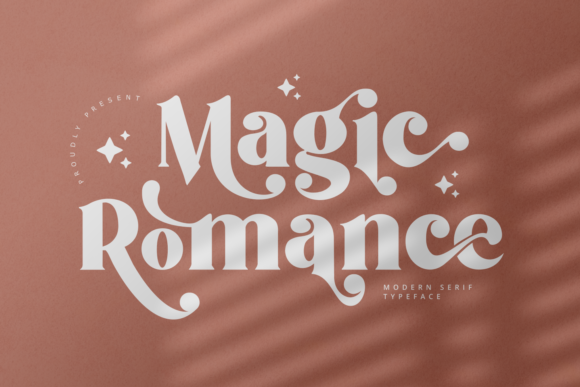
Introducing Magic Romance Font, the ultimate choice for fashionistas and design enthusiasts alike! Created by zeenesia, this retro styled, trendy and fashionable serif font is here to elevate your creative game to new heights. With its PUA encoding, accessing the stunning glyphs and ligatures has never been easier!
Unleash your inner creativity and let Magic Romance Font mesmerize your audience with its exquisite charm. Perfect for fashion logos, this font family is designed to evoke emotions and make a lasting impression. Its timeless appeal will ensure that your brand stands out from the crowd.
Step into a world of endless possibilities with Magic Romance Font. From elegant quotes to captivating headlines, this font will bring your designs to life, leaving your audience in awe. Its versatility allows it to seamlessly blend into various design projects, making it a must-have for any creative endeavor.
With Magic Romance Font, you can effortlessly infuse your designs with a touch of nostalgia and vintage appeal. Whether you're working on a retro-inspired branding project or a modern fashion campaign, this font will add the perfect dose of elegance and sophistication.
Join the ranks of top designers and unlock the true potential of your creations with Magic Romance Font. Its rich collection of glyphs and ligatures will empower you to create unique and eye-catching designs that leave a lasting impact. Stand out from the crowd and let your creativity shine through.
Experience the charm and allure of Magic Romance Font. Take your designs from ordinary to extraordinary and make a lasting impression. Unlock the power of this font and let your creativity soar!